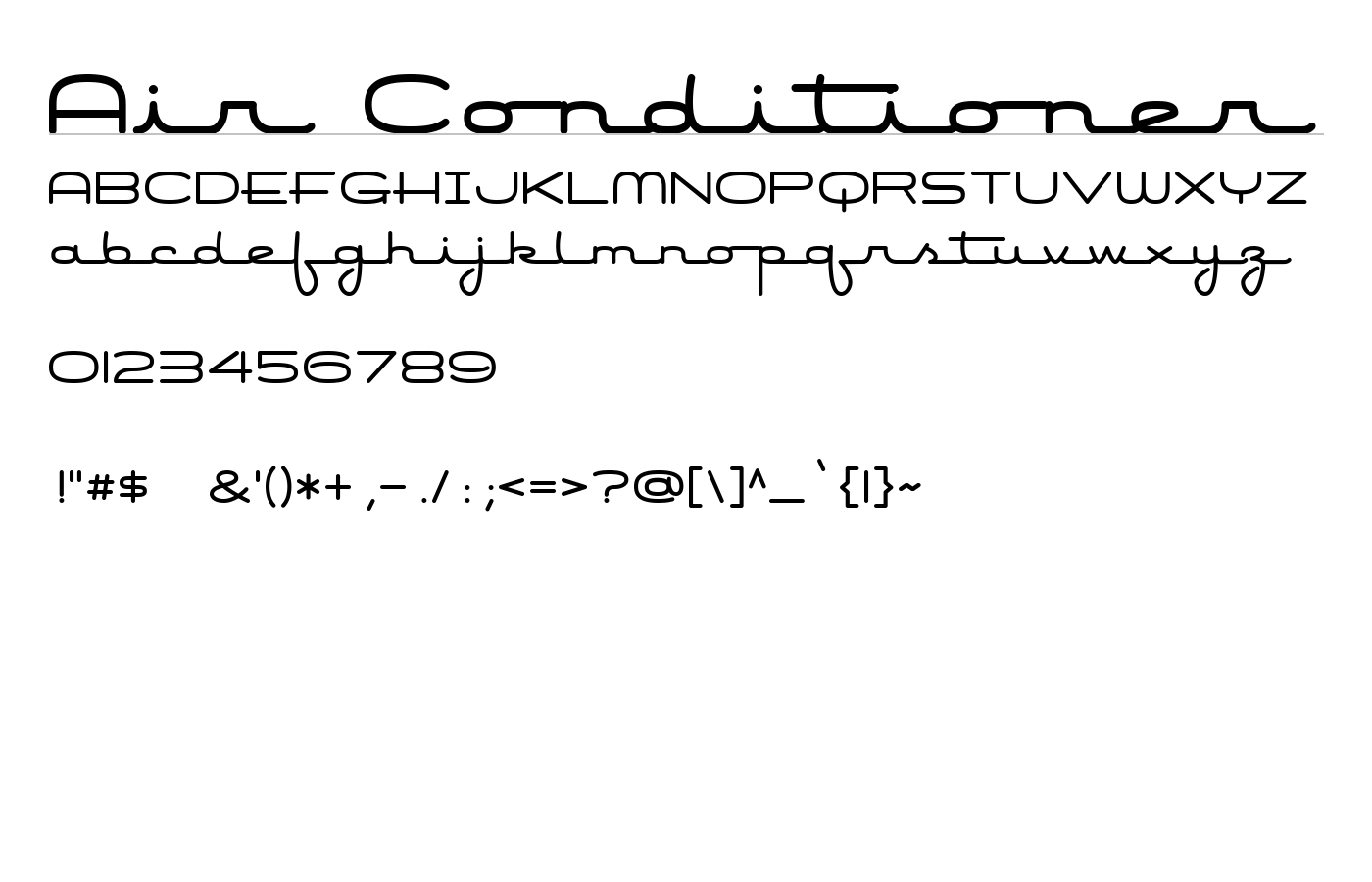
Air Conditioner is a unique sans serif font with a modern, playful touch, featuring clean, rounded lines and a light weight that gives it an airy, open feel. Its distinctive lowercase script style contrasts with the simple uppercase characters, making it well-suited for creative logos, branding, and headlines where a friendly yet contemporary vibe is desired. This font works best in designs that aim to be approachable and stylish without sacrificing legibility.
Air Conditioner Font